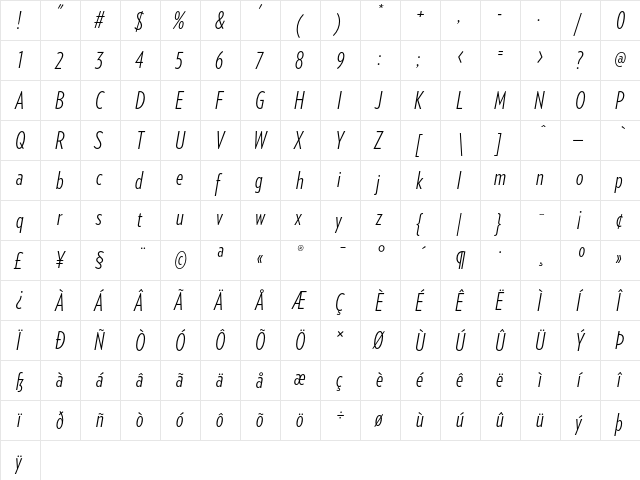
Verlag Compressed Light Italic Font Preview
| Style | Light Italic |
| Foundry | Hoefler & Frere-Jones |
| Designer | Hoefler & Frere-Jones |
Design Context for Verlag Compressed Typeface
Verlag Compressed offers clean, dependable letterforms without strong stylistic allegiance, making it a practical choice for designers who need flexibility. The dynamic lean of this cut emphasises speed and emphasis in any layout. The delicate stroke weight brings airiness and refinement to layouts.